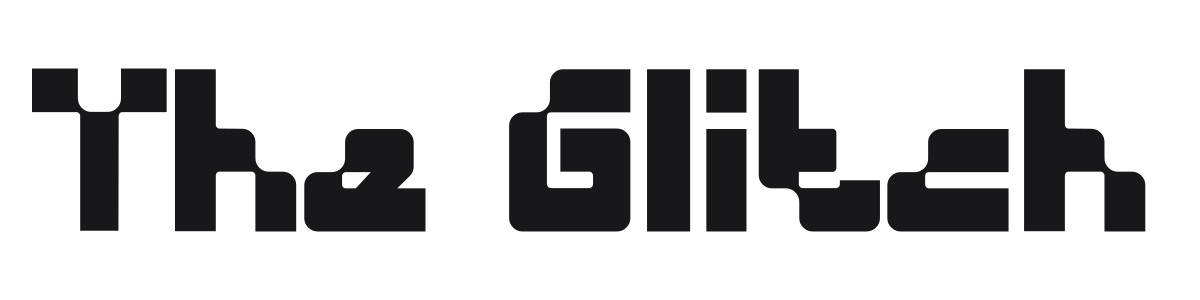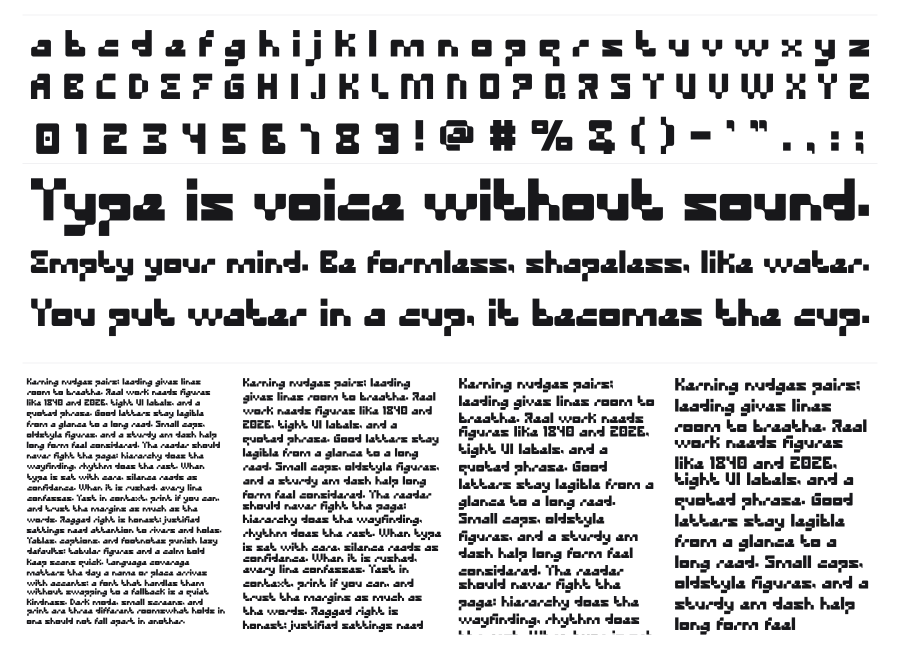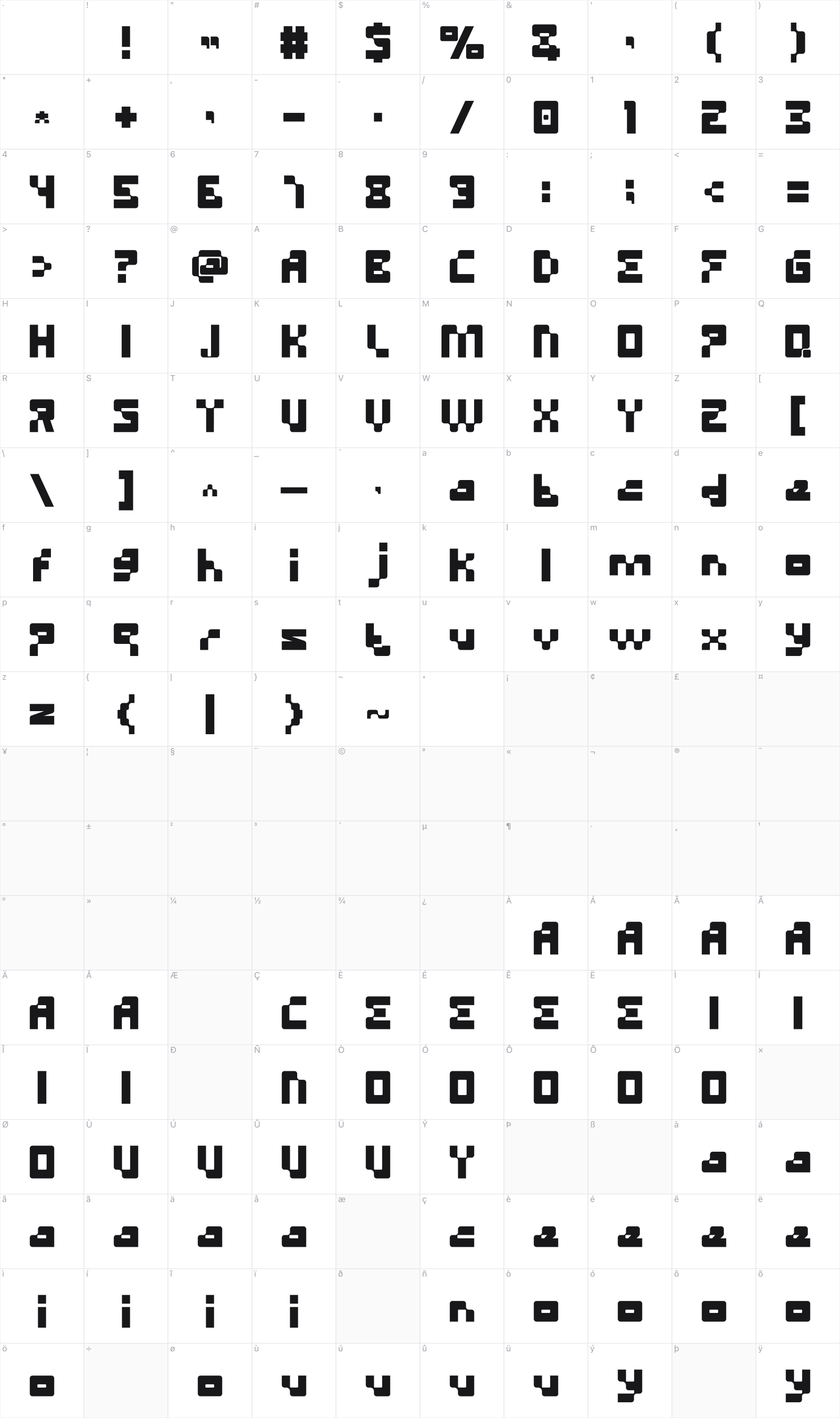
The Glitch
The Glitch is a bold modular techno display font built from interlocking square and rectangular blocks with softly clipped corners. Deliberate notches and cutouts in the letterforms create a fragmented, glitch-corrupted look that reads as aggressively digital. It lands well on gaming branding, music visuals, and tech-forward headlines where impact is the point.